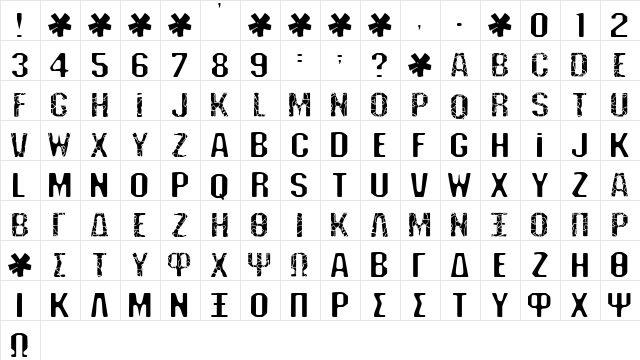
DEADLINE Regular
Design Context for DEADLINE Typeface
DEADLINE is a composed and adaptable typeface that performs quietly and consistently across a wide range of design contexts.